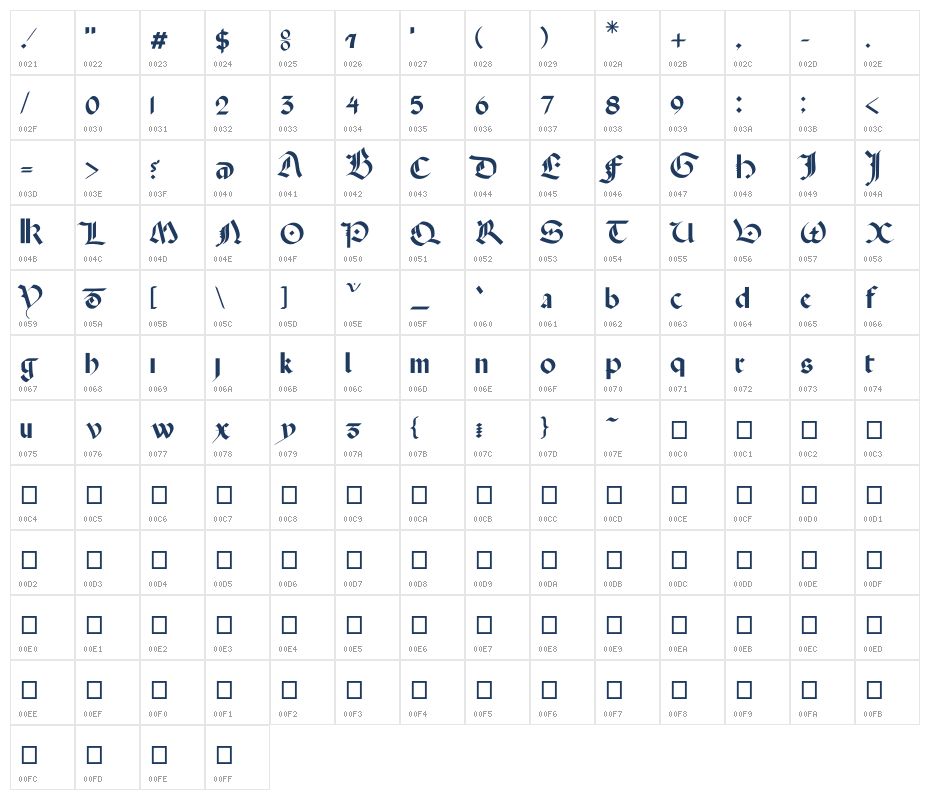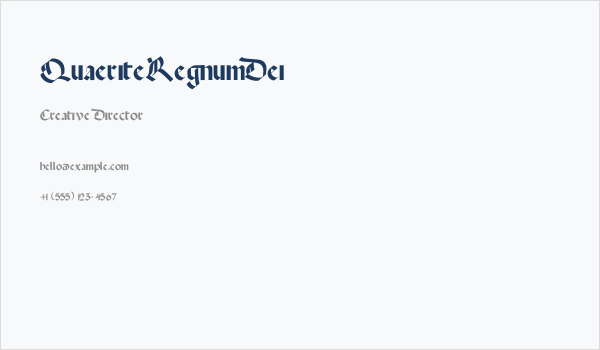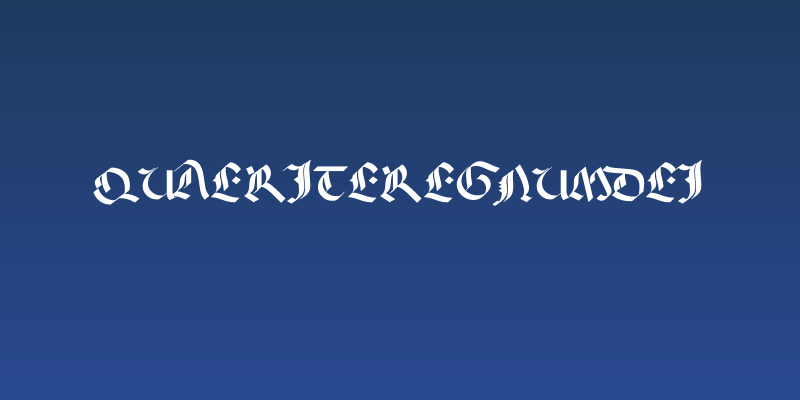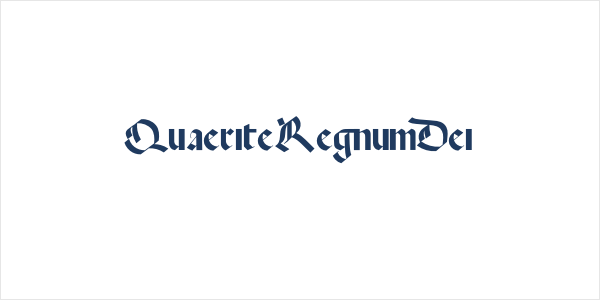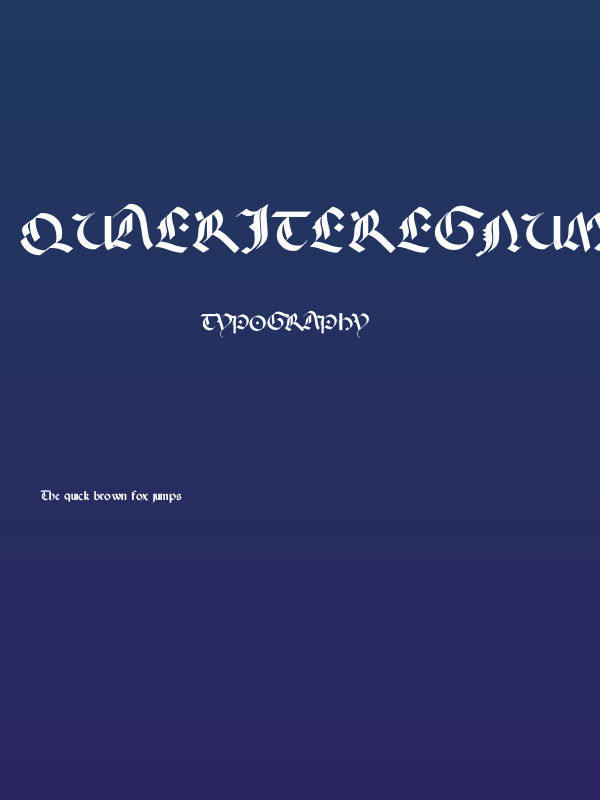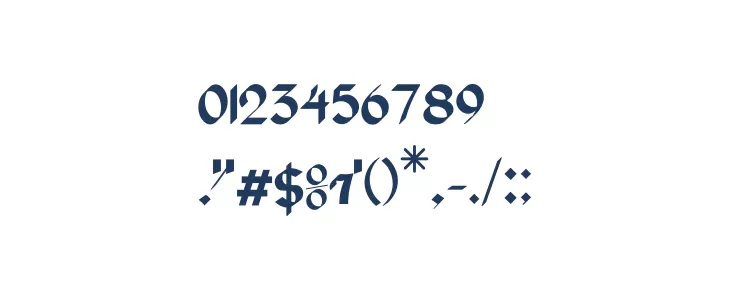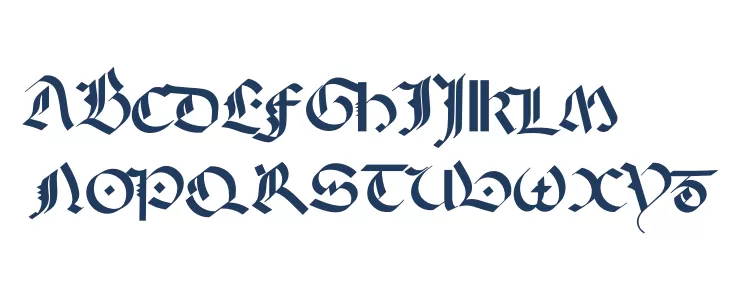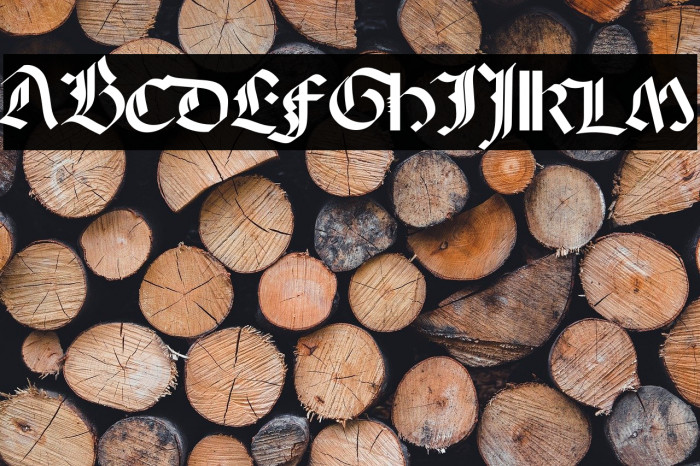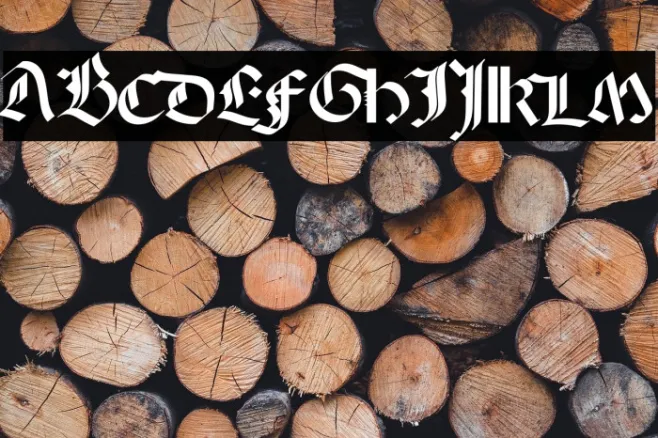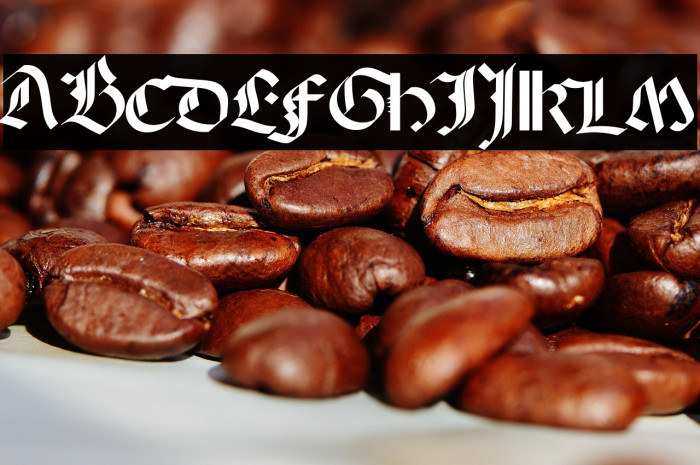
QuaeriteRegnumDei Font
QuaeriteRegnumDei Description
A Gothic or Blackletter style font with ornate, sharp, and angular letterforms, featuring dramatic strokes and decorative elements.
| Overall Style | Medieval, Ornate, Decorative |
| Use Case | Headlines, Logos, Tattoos, Decorative Text |